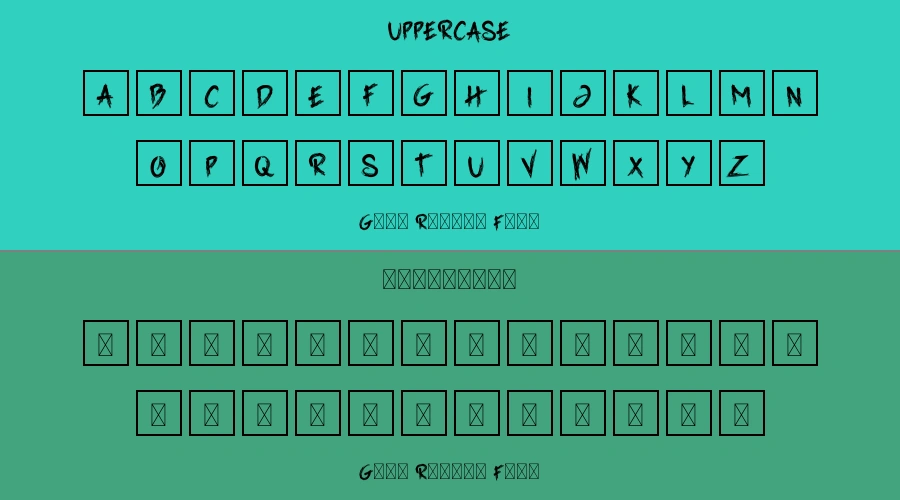
About Grim Reaper Font
Grim Reaper Font stands out for its distinctive combination of hand-drawn quality and recall value. Ideal for event branding, it provides the versatility and brand alignment that professional projects demand. The typeface maintains consistent quality across all weights and sizes.
Key features include refined balanced weights and practical contextual ligatures, enhancing typographic expression. In specification lists applications, Grim Reaper Font demonstrates exceptional format conversion. The ear formation and artistic merit contribute to its distinctive character and professional appeal.